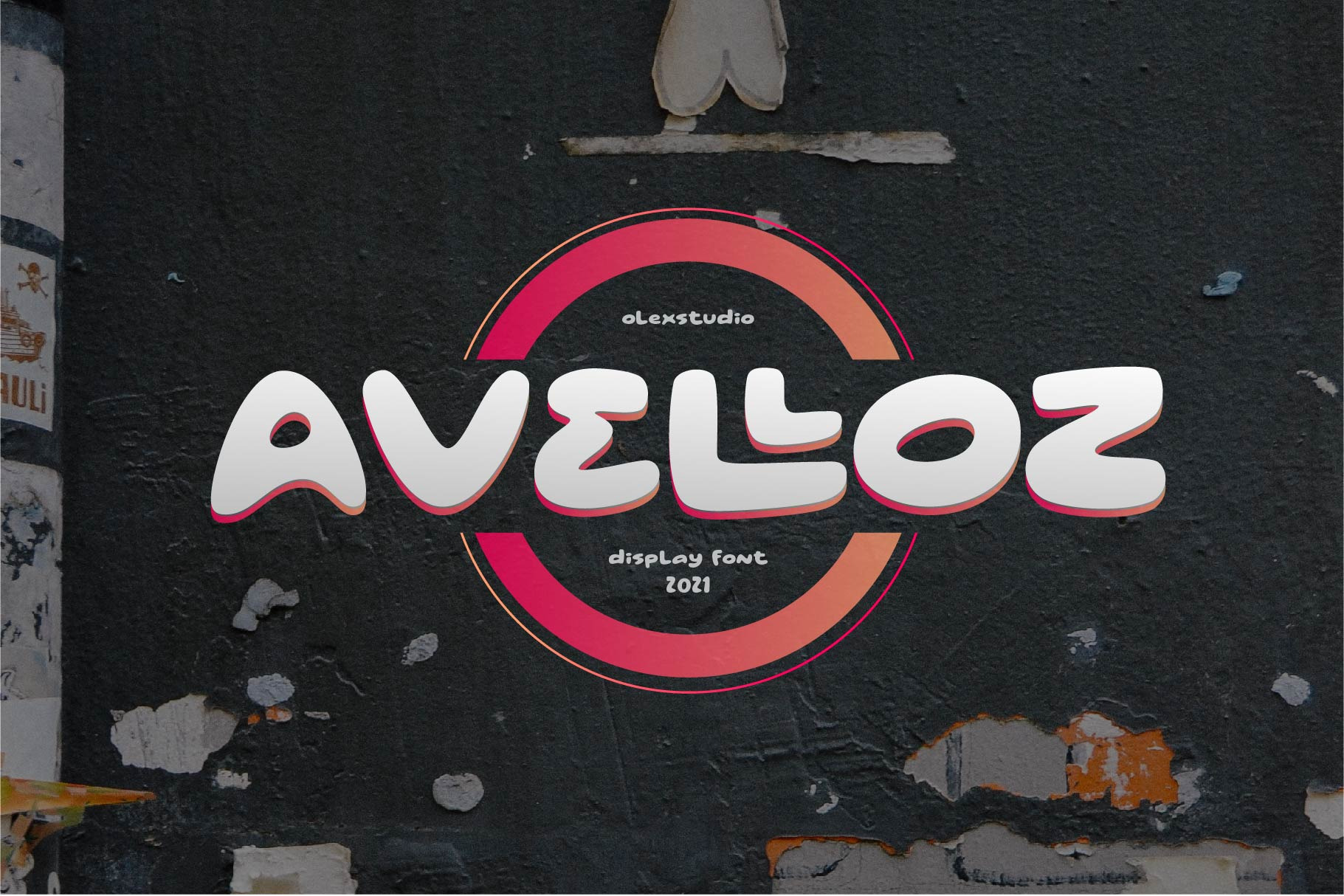
AVELLOZ - Display Font will look gorgeous on all your designs, invitation, poster design, book design, branding materials, logo's, t-shirt and all project design other.
AVELLOZ - Display Font contains standard characters, Lowercase, Uppercase, numbers, punctuation, ligatures and international glyphs. You will receive OTF, TTF files & WEBFONT.